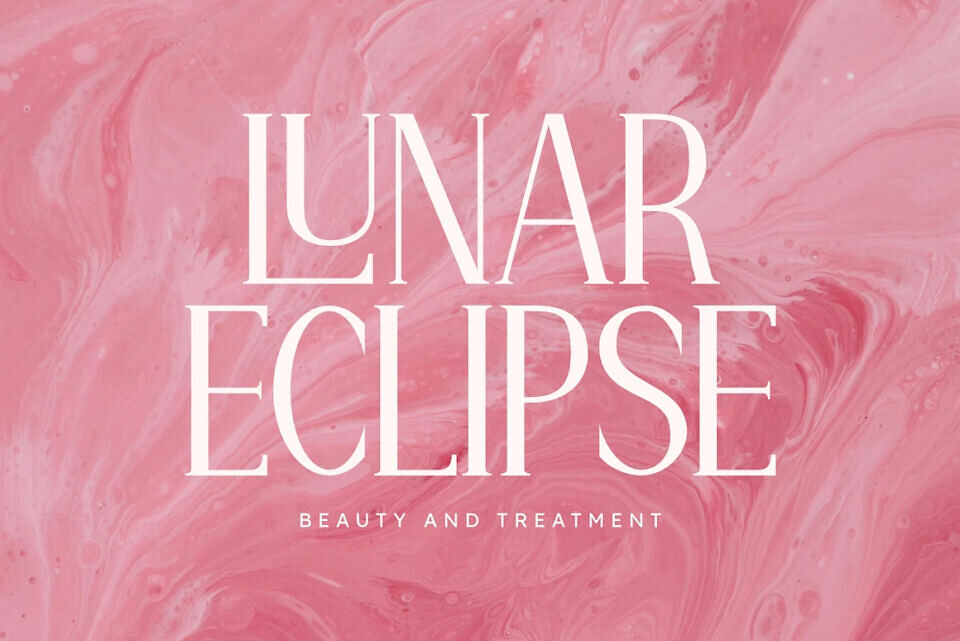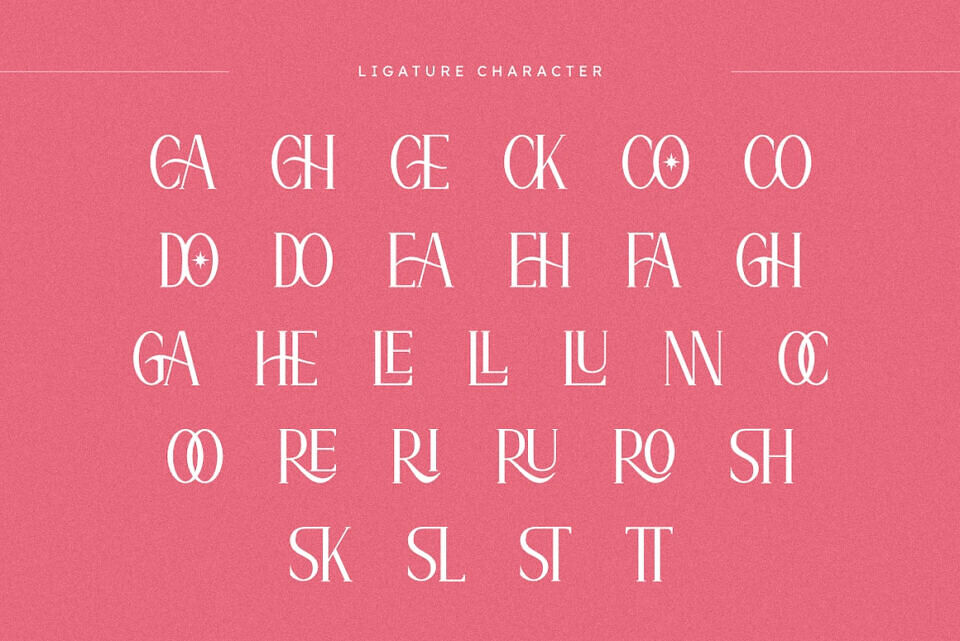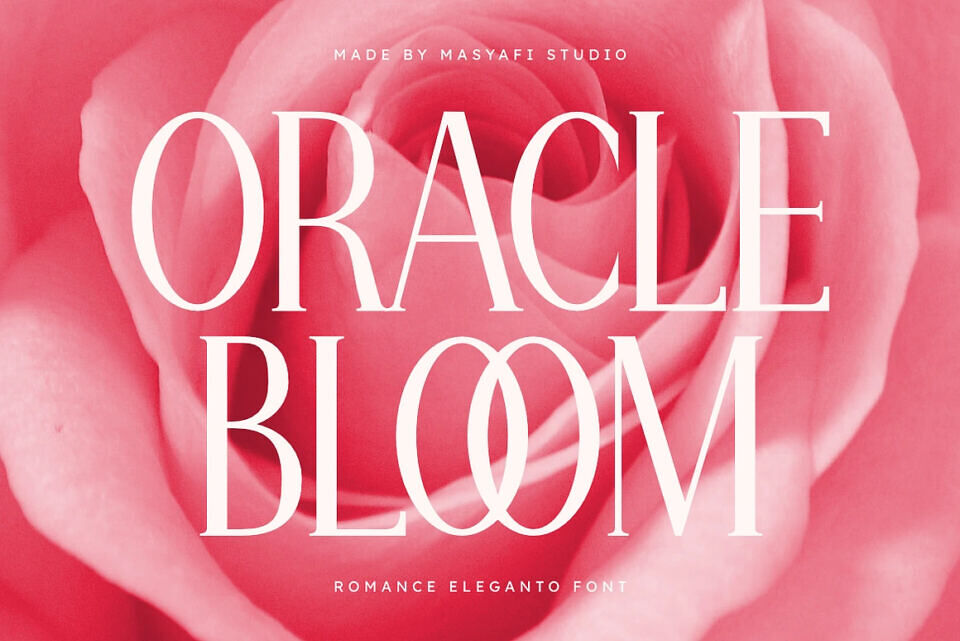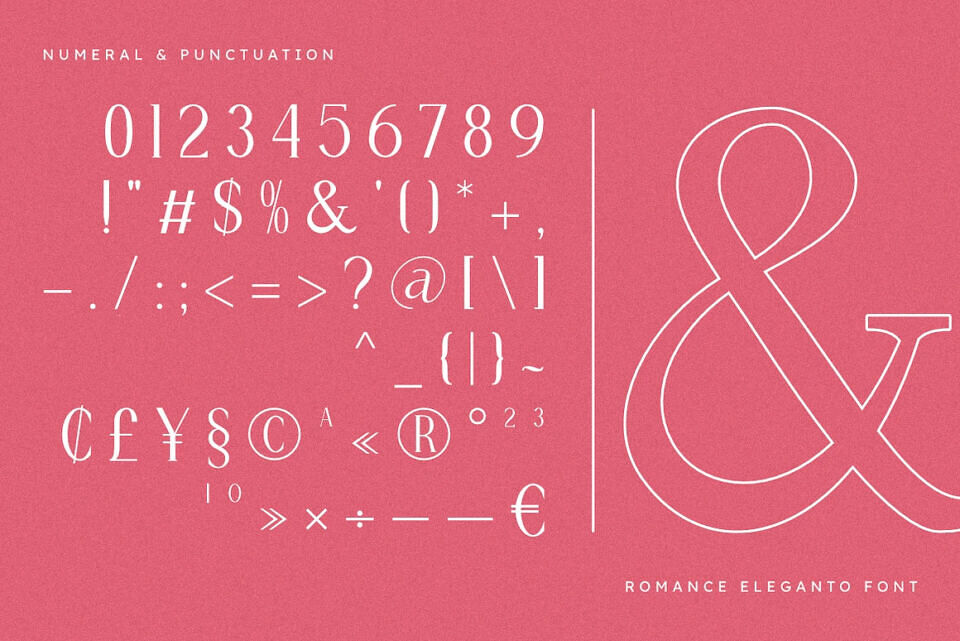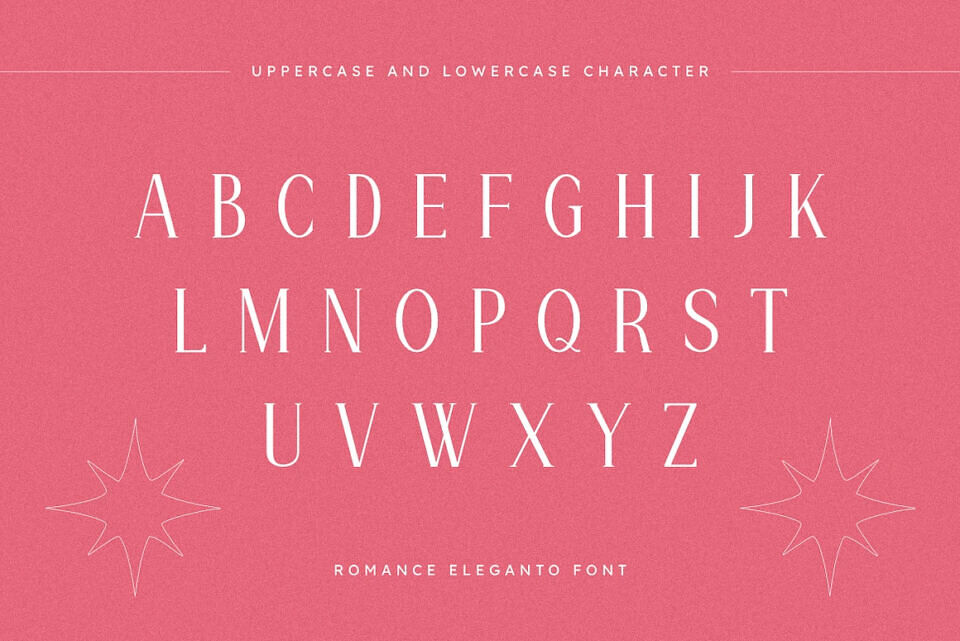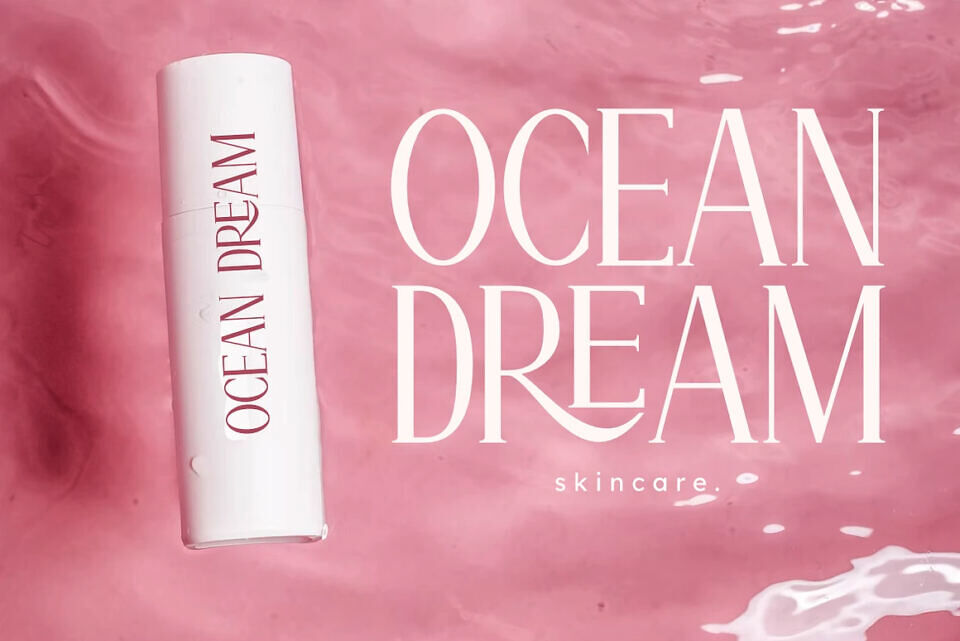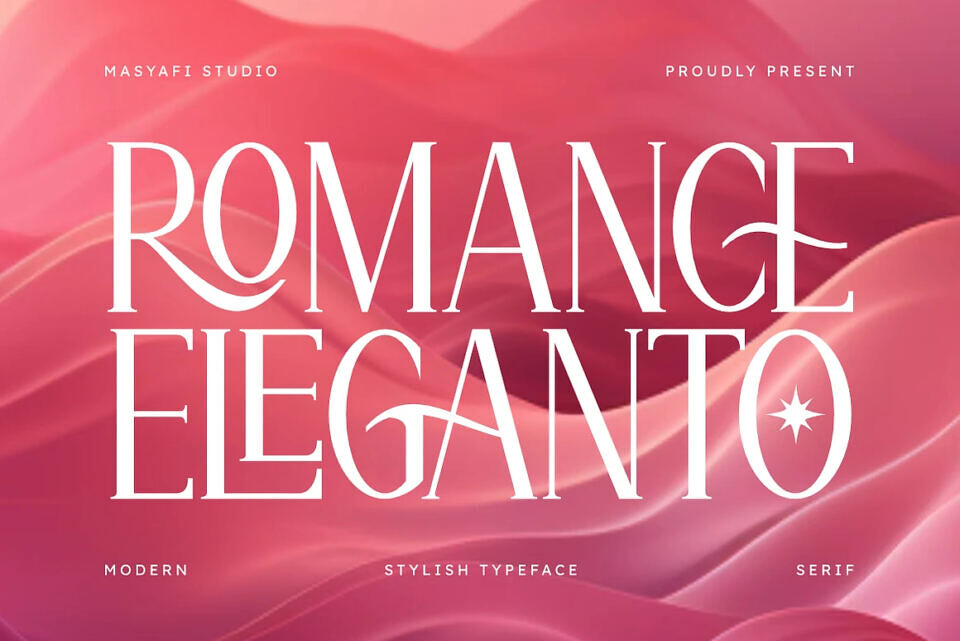
Romance Eleganto Font
Introducing Romance Eleganto, a Modern Stylish Serif Font that blends timeless elegance with contemporary sophistication. Designed to capture beauty and class, Romance Eleganto brings graceful curves and refined letterforms that radiate charm and luxury in every detail.
Perfectly suited for fashion branding, wedding invitations, magazines, and upscale packaging, this font adds a sense of romance and elegance to any design. Its stylish serifs and delicate strokes make it both modern and classic — an ideal choice for those who appreciate artistic refinement.